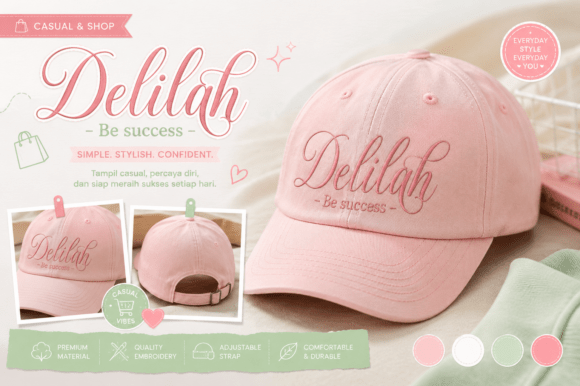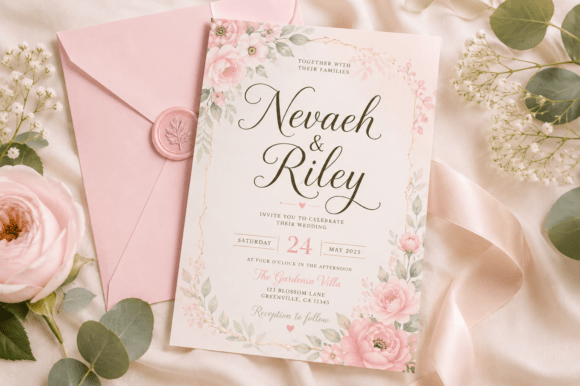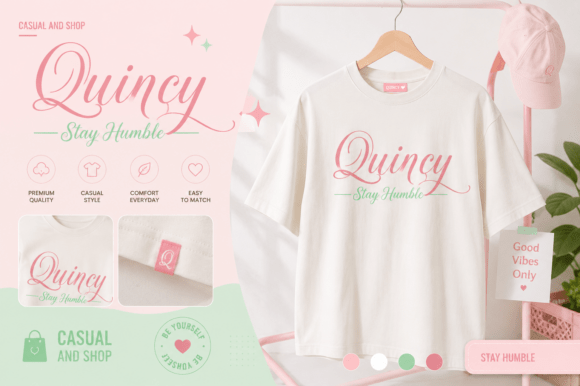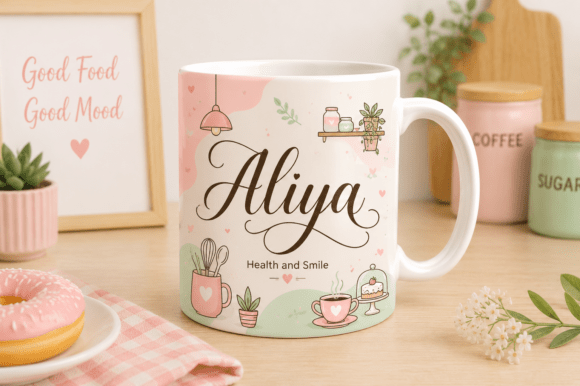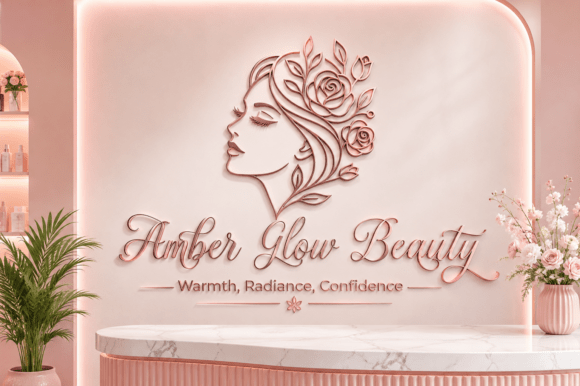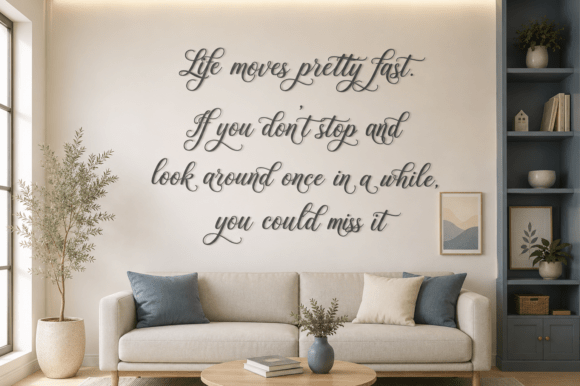
Introduction to Meryaten Font
Have you ever found yourself captivated by a beautiful handwritten note, a wedding invitation, or a stylish logo, wondering what makes it so special? The answer often lies in the elegant script of the font used. For designers seeking to add a touch of sophistication and refinement to their creative projects, the Meryaten Font is an excellent choice.
With its smooth curves, lofty ascenders, and chic lowercase letters, this modish calligraphy font is designed to evoke a sense of luxury and gentleness, making it an ideal design resource for a wide range of applications. Whether you’re working on a high-quality branding project, crafting intimate wedding invitations, or designing striking logos, the Meryaten Font is sure to impress.
Key Features of Meryaten Font
- High-quality design resource ideal for creative projects, offering a unique and elegant style.
- Perfect for use in a variety of creative applications, from branding and logos to typography and graphics.
Honest Review: Meryaten Font
I recently stumbled upon the Meryaten Font and was excited to give it a try in my latest design project. As a designer, I’m always on the lookout for high-quality design resources to elevate my work.
Here are some of my favorite features:
- High-quality design with a unique aesthetic
- Perfect for creative projects requiring an elegant touch
However, I do have a few minor complaints: ⚠️ The font is only available in a few weights, which may limit its versatility in certain design applications. Additionally, the font doesn’t come with a comprehensive character set, which may be a concern for designers working on international projects.
Overall, I’m impressed with the Meryaten Font and would recommend it to designers looking for a high-quality, elegant font for their creative projects.
Tips for Getting the Most Out of Meryaten Font
To get the most out of the Meryaten Font, use it in conjunction with other high-quality design elements. Experiment with different font sizes, colors, and styles to create a unique look. You can also use the font as a background or overlay to add depth to your designs.
The Meryaten Font is perfect for creative projects such as wedding invitations, business cards, and social media graphics. Its elegant style and transparent background make it ideal for adding a touch of sophistication to your designs.